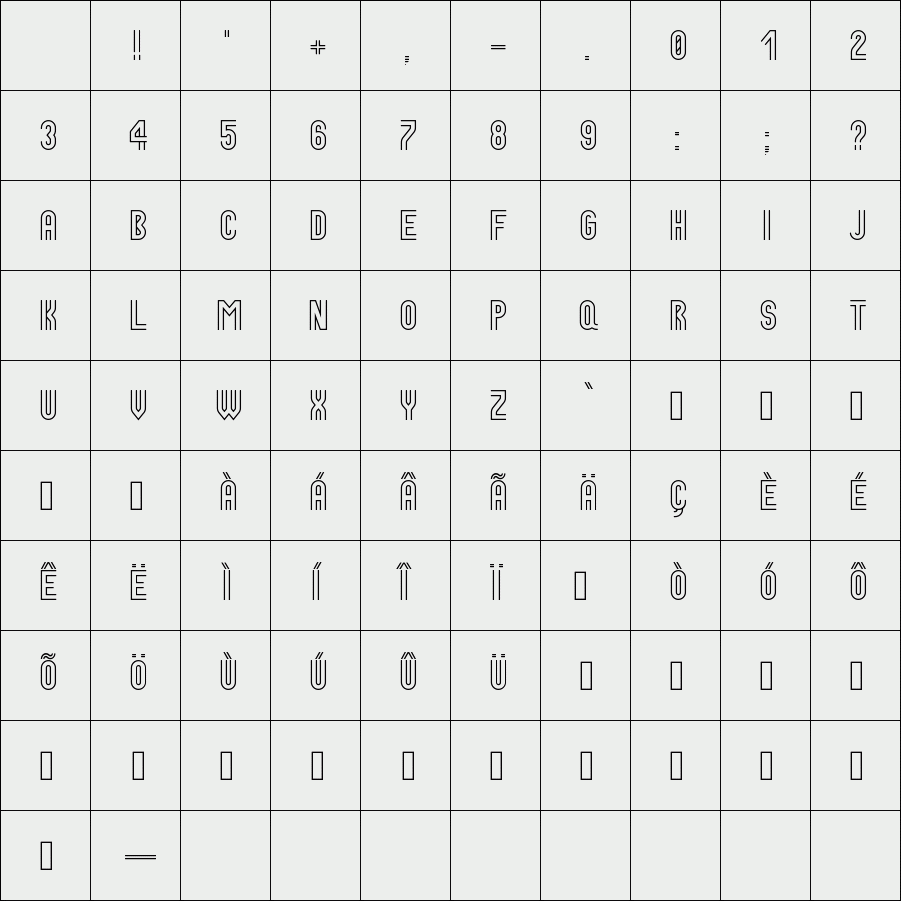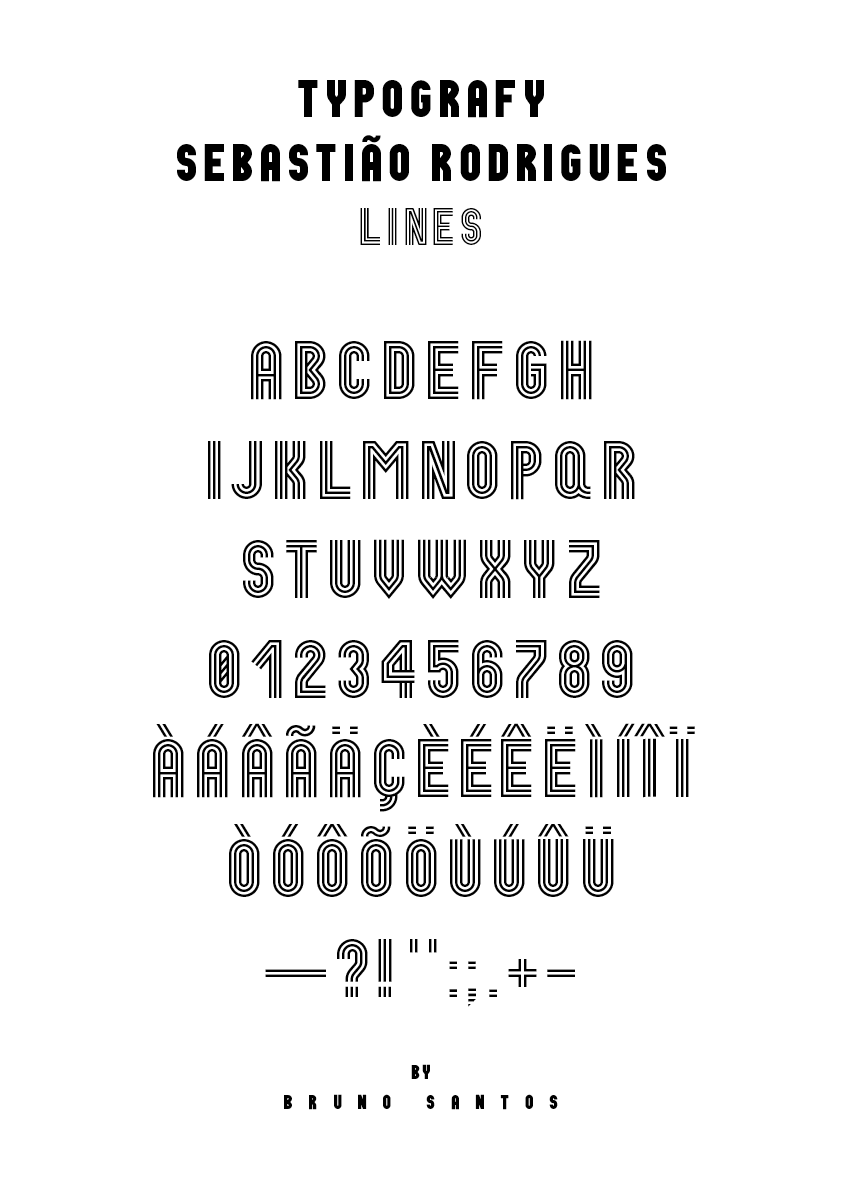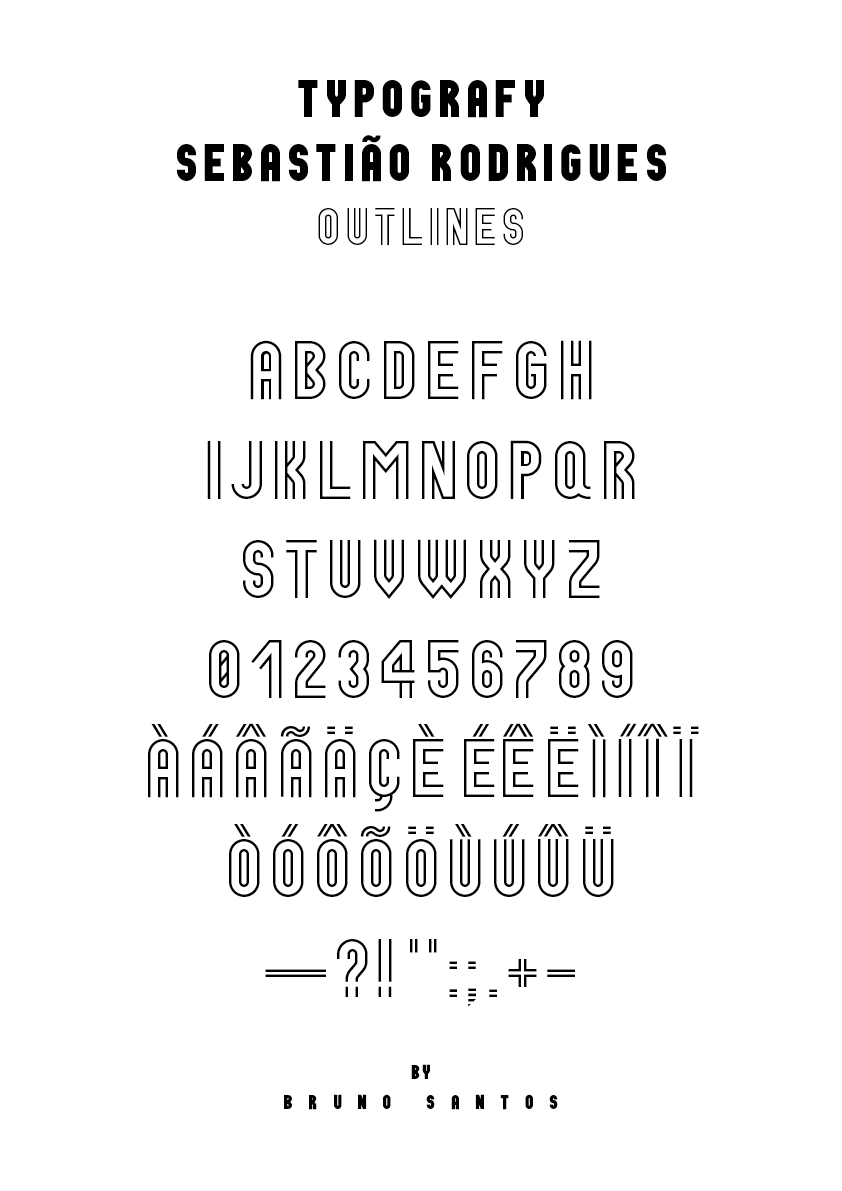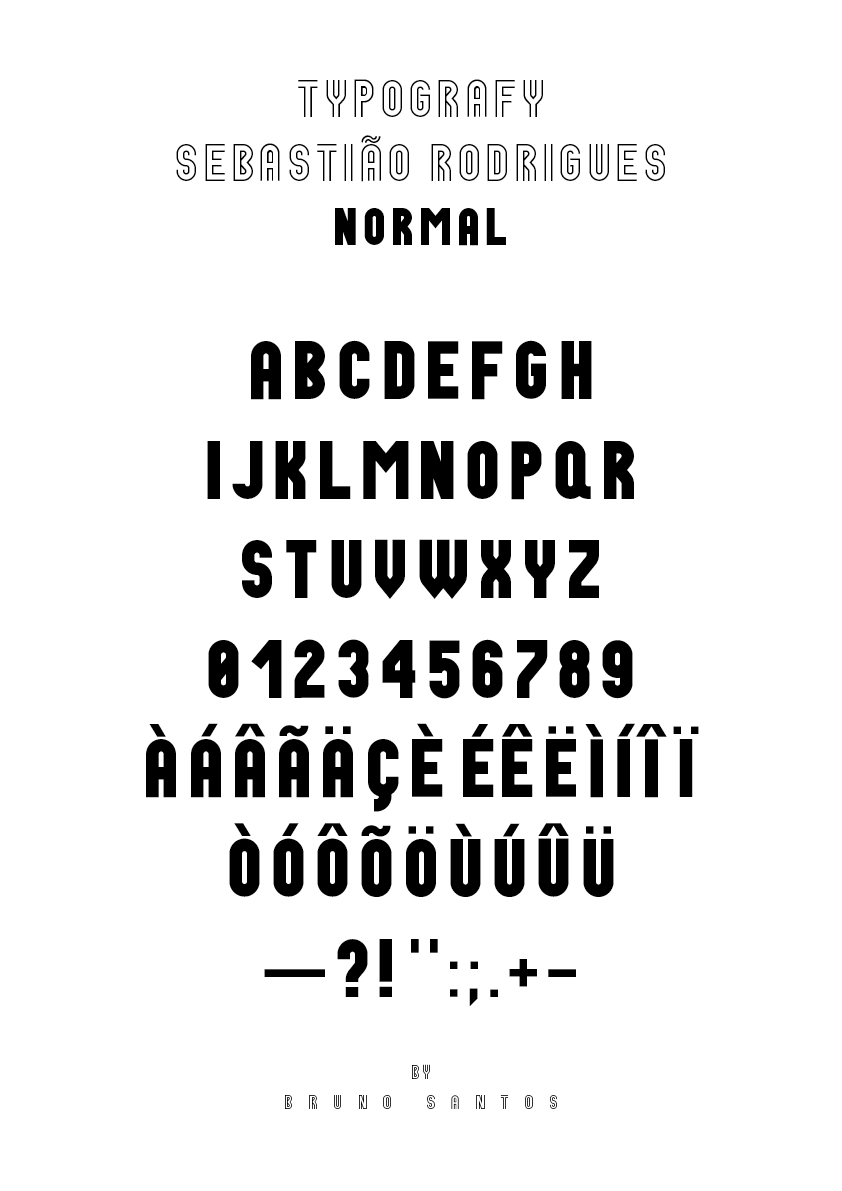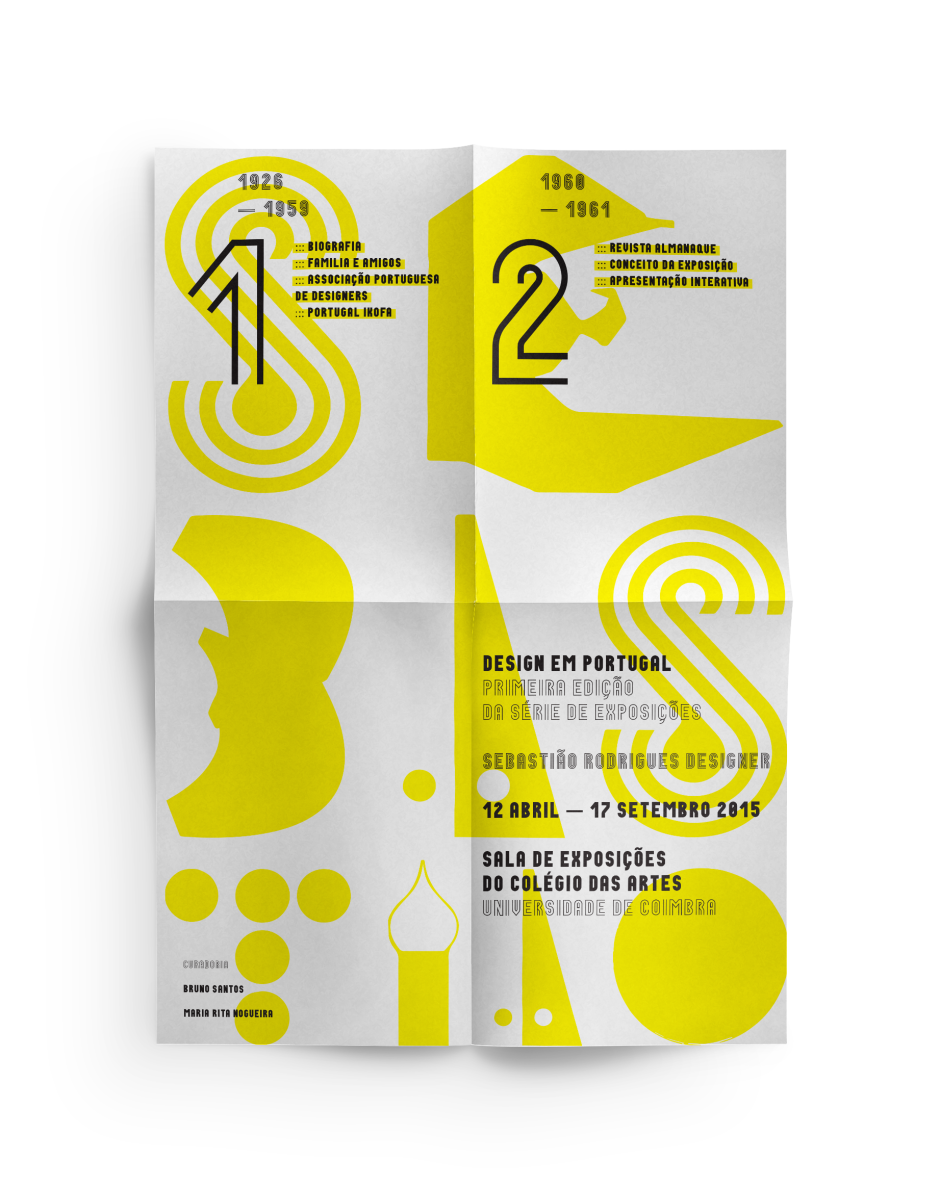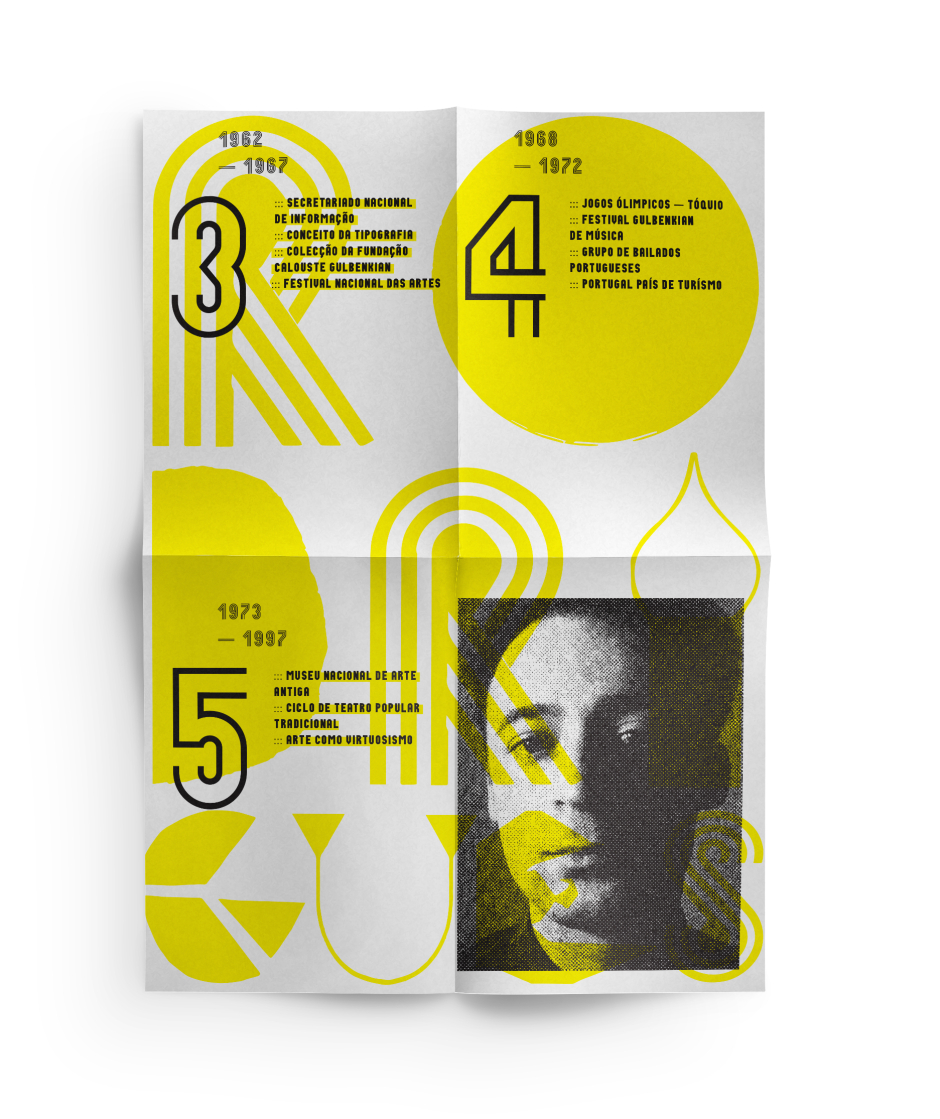
Sebastião Rodrigues
/ Sebastião Outline
Sebastian Rodrigues Font is a sans serif, suitable for titles, signage, headlines, environmental graphics, interface, or small body of text. Inspired by the work of Sebastião Rodrigues, Portuguese designer.
* Available only uppercase.
Designer: Bruno Santos